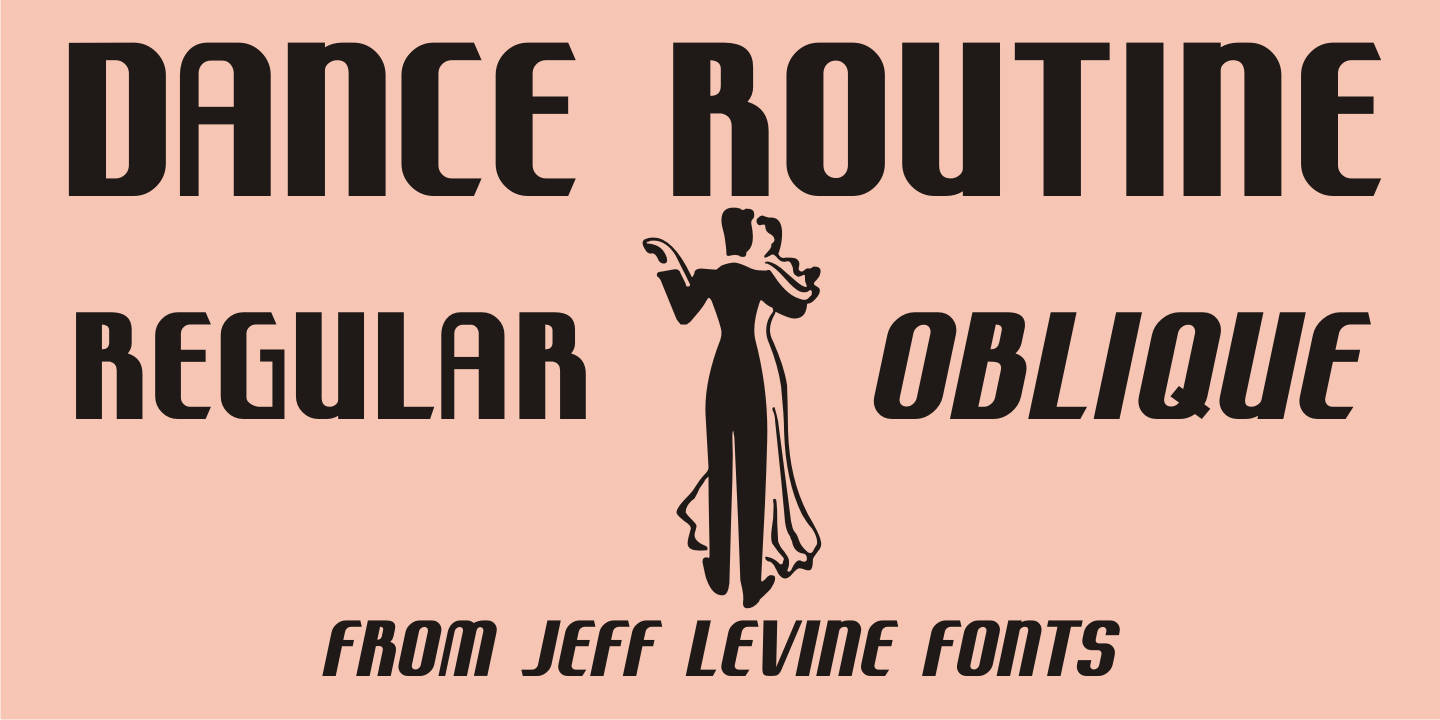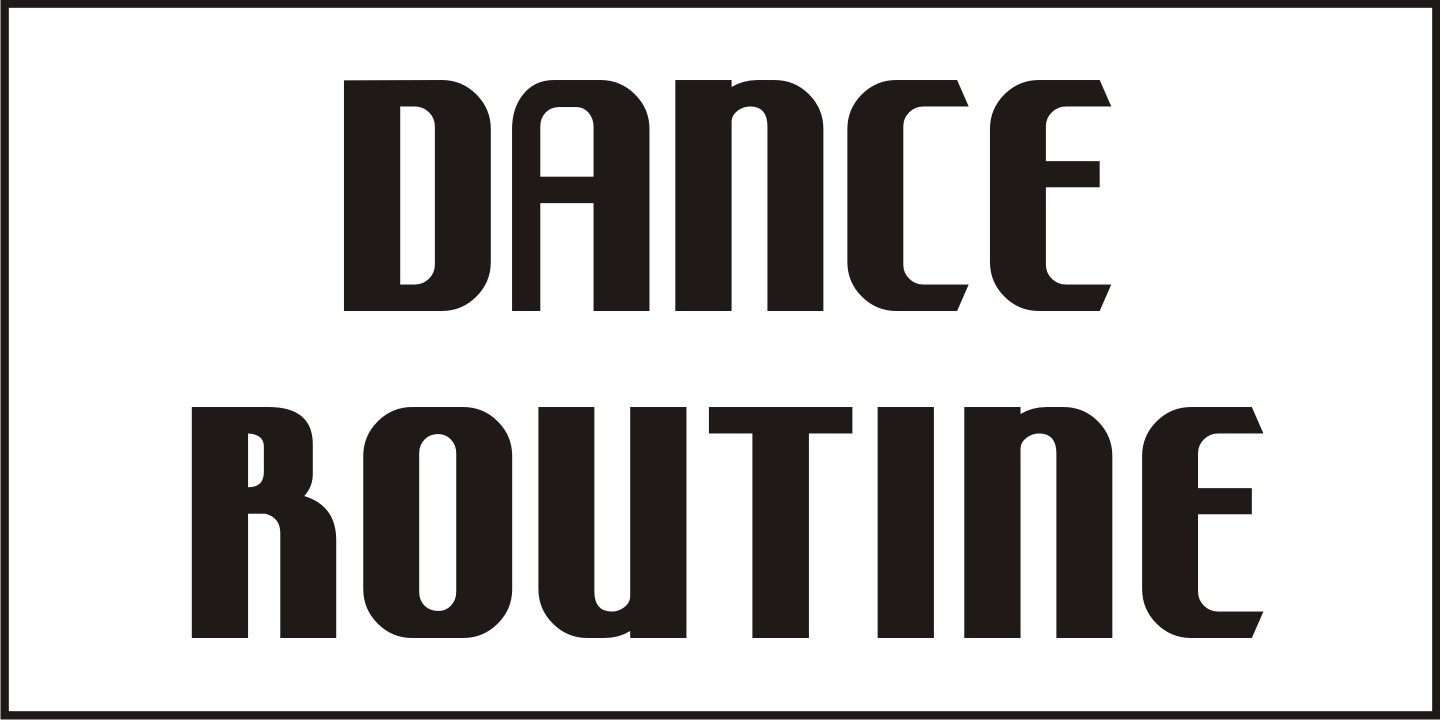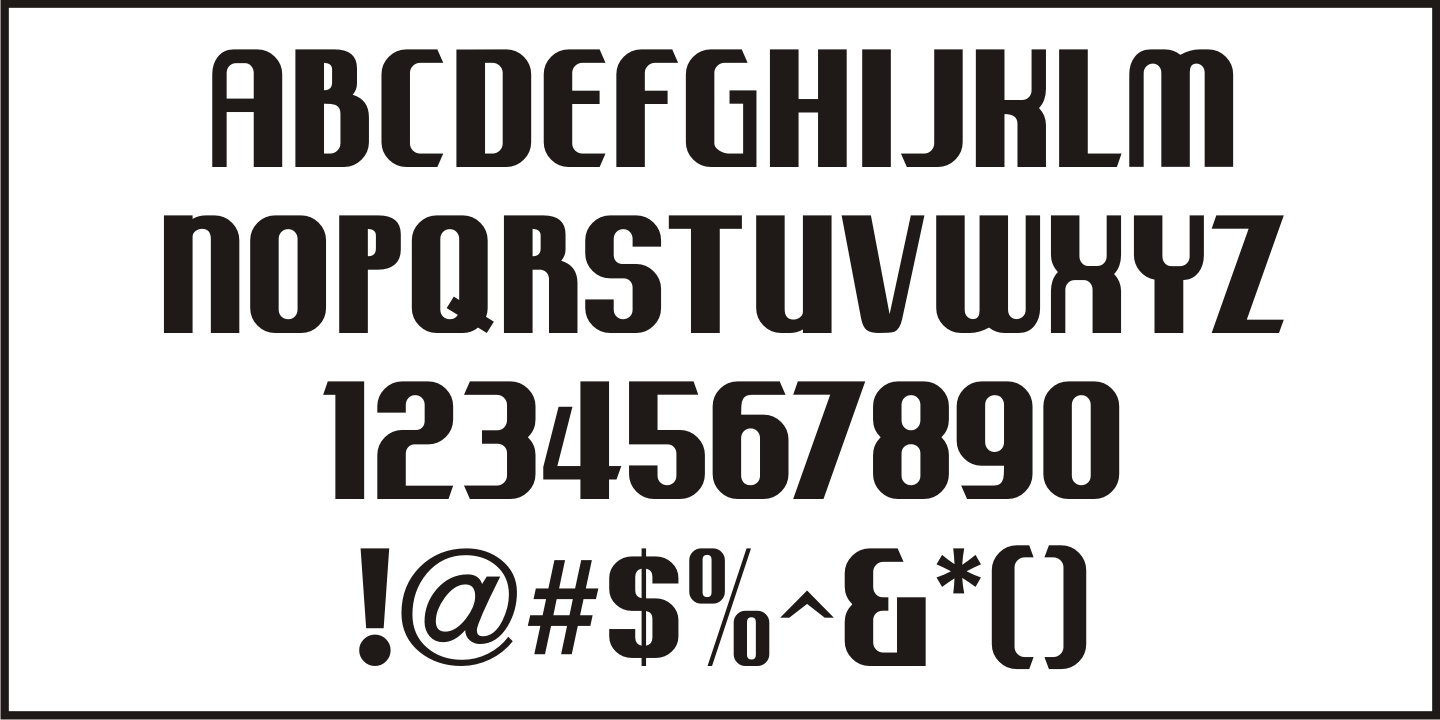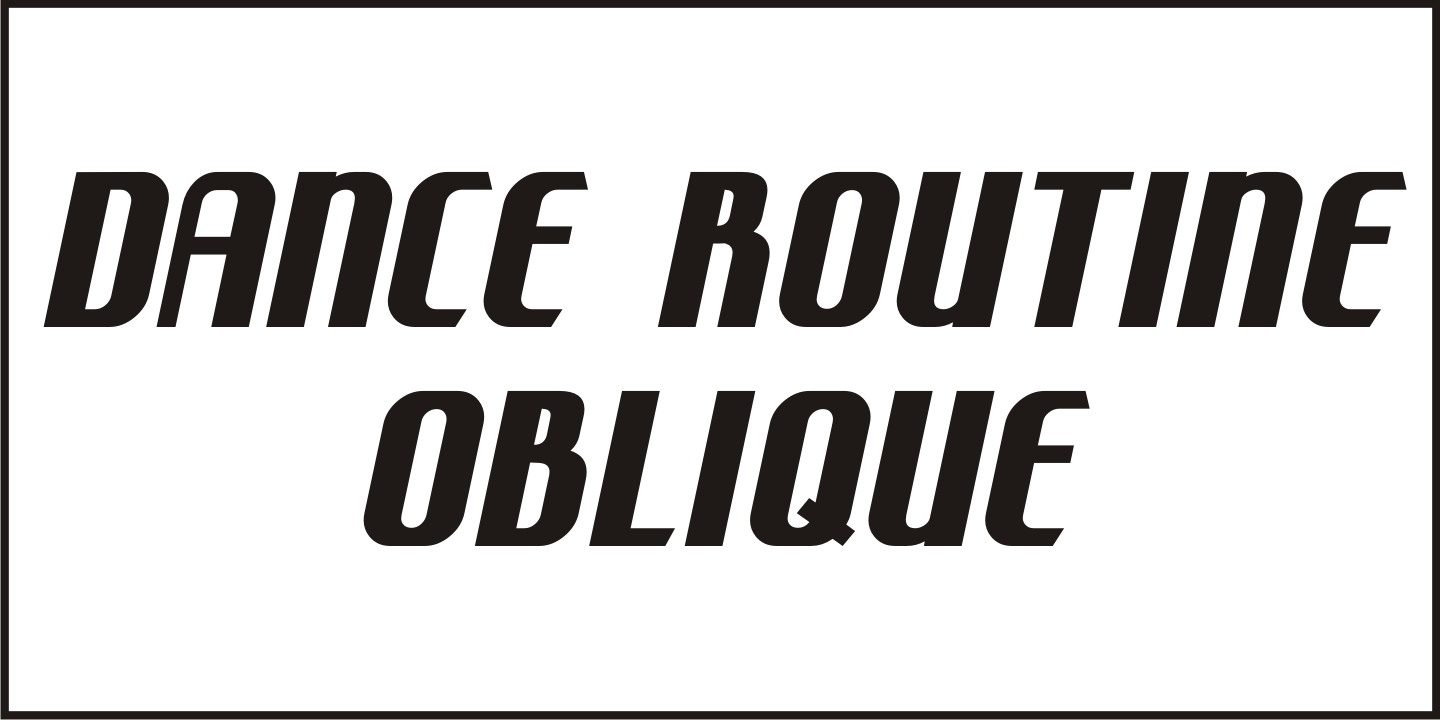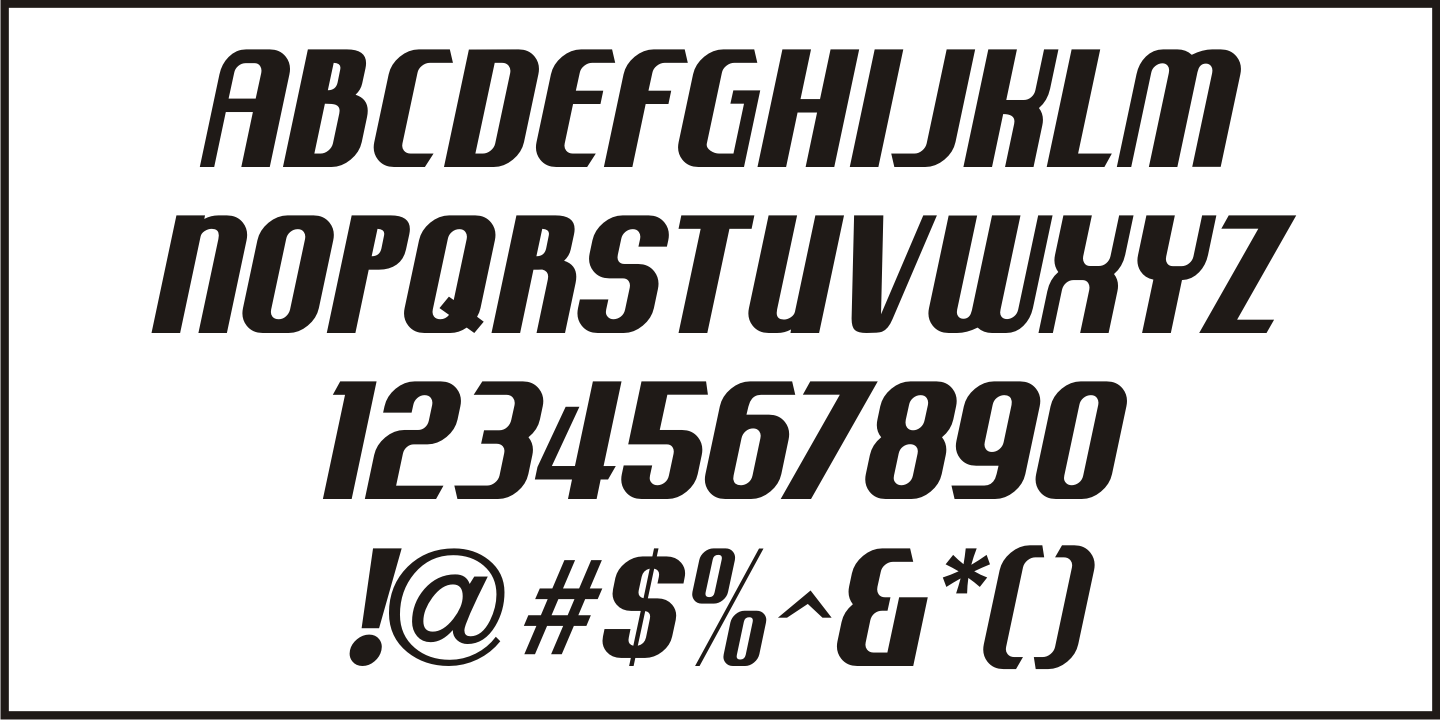
Dance Routine
The hand lettered title on the cover of the 1932 sheet music for “I Wish We Could Dance Forever” was the inspiration for Dance Routine JNL. This bold Art Deco sans serif design is now available in both regular and oblique versions.
Dance Routine JNL Regular by Jeff Levine Fonts